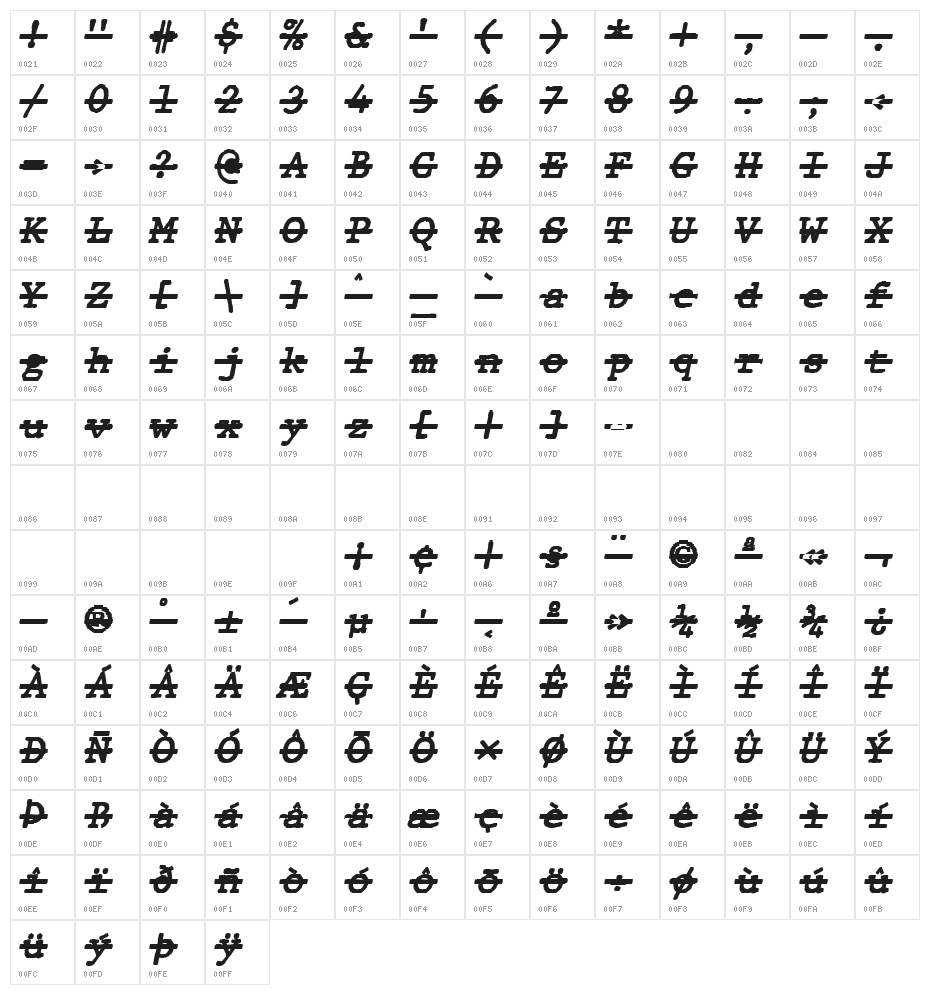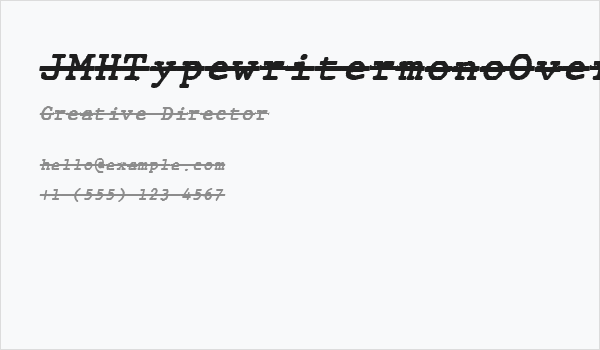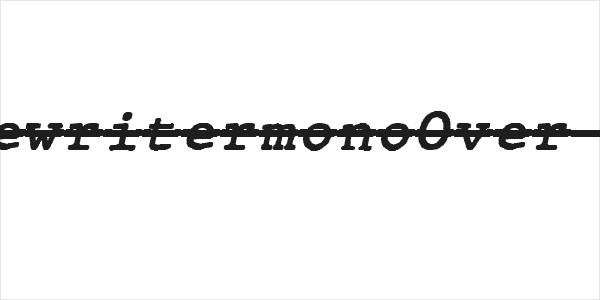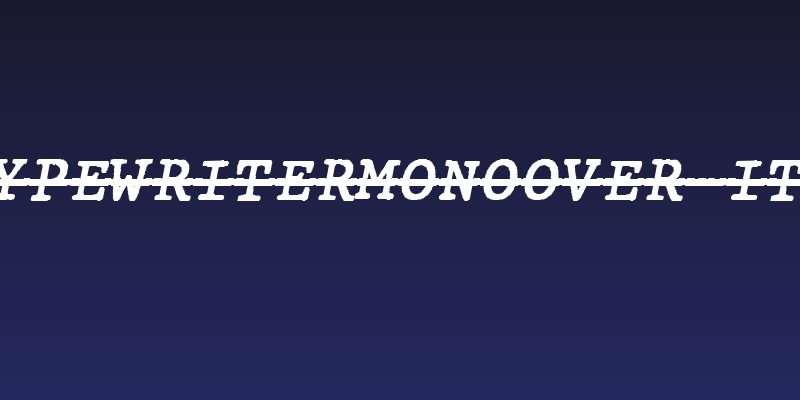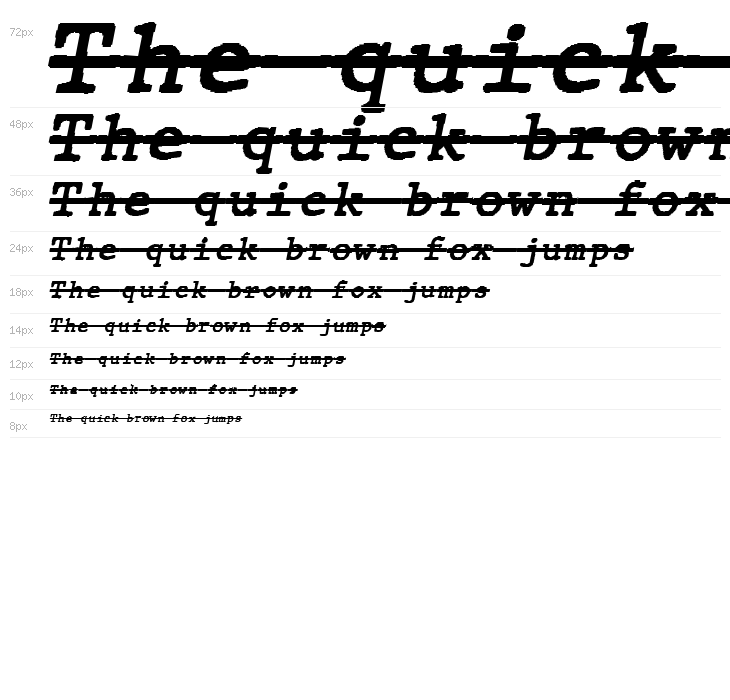
JMHTypewritermonoOver-Italic Font
JMHTypewritermonoOver-Italic Description
This font features a monospaced, typewriter-style design with a distinct italic slant, giving it a vintage and mechanical feel. The characters are evenly spaced, maintaining a uniform appearance across both uppercase and lowercase letters. The strokes are consistent in width, providing a low contrast that enhances readability. The font includes a full set of numerals and a variety of punctuation marks, making it versatile for various applications. Its unique style is reminiscent of old typewritten documents, adding a nostalgic touch to any project.
| Use Case | Headlines, Body text, Coding, Retro designs |
| Proposed Projects | Ideal for retro-themed designs, coding projects, or any work requiring a typewriter aesthetic. |